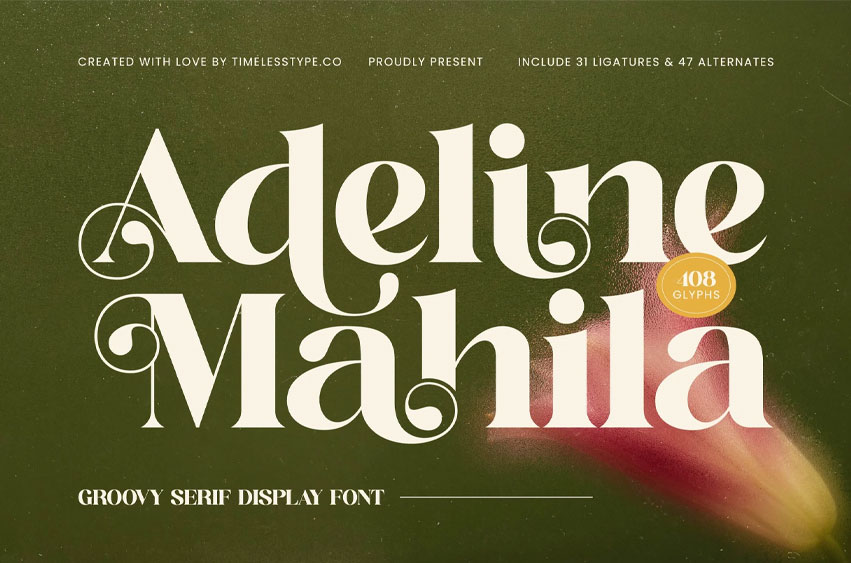
Adeline Mahila Font
Adeline Mahila Font is a groovy serif display font crafted with smooth curves, expressive swashes, and elegant retro-inspired details. Its stylish serif structure blends vintage charm with modern flair, making every word look artistic, bold, and tastefully decorative.
Designed with 31 ligatures and 47 alternates, this typeface gives you full creative freedom to build unique logotypes, standout titles, elegant headlines, branding systems, invitations, posters, packaging, and editorial layouts. Each letter shape flows with personality, giving your designs a warm, nostalgic, and premium feel.